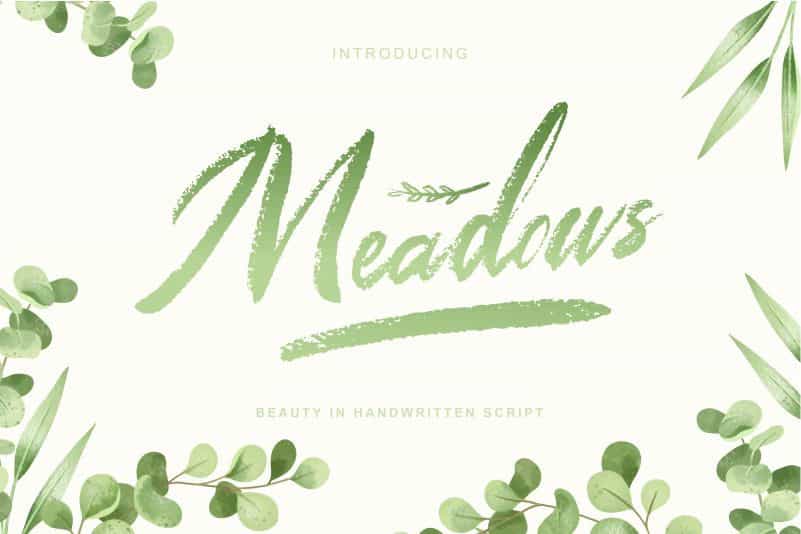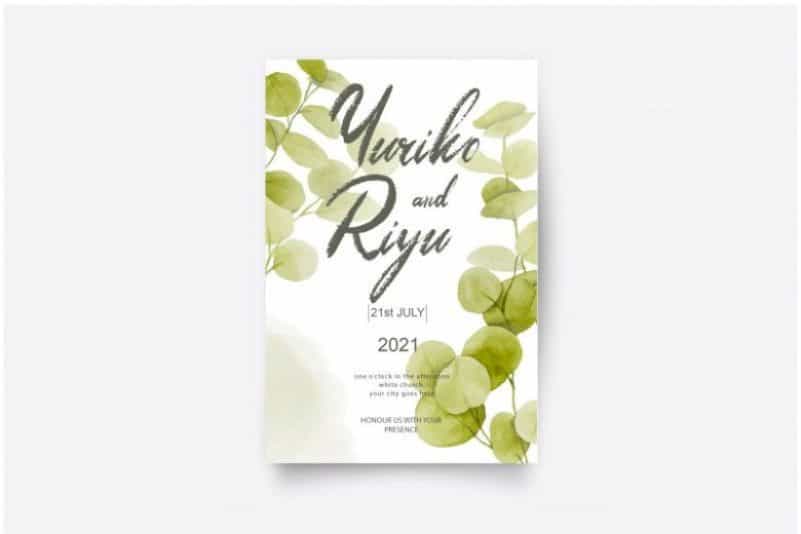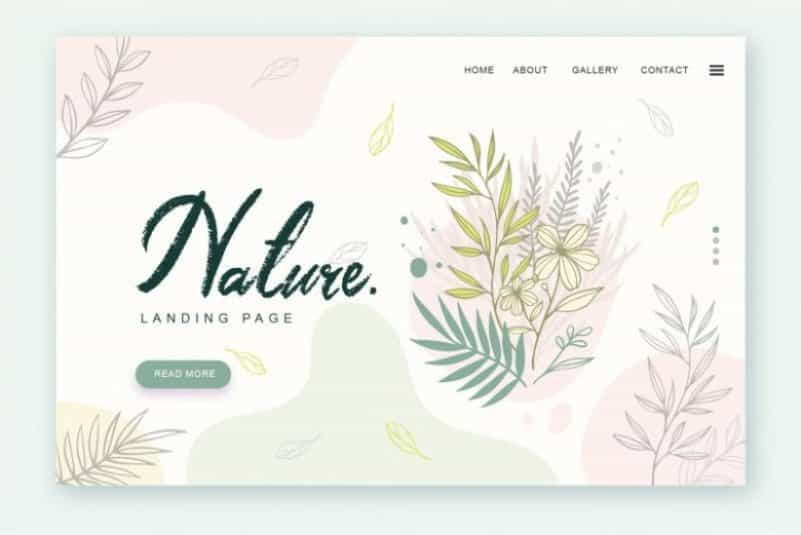
Meadows is a charming, old-fashioned handwritten script font. The jolly looking textured characters are the best font for making beautiful calligraphy art. Meadows has a variety of bold and aesthetic swashes that can be used to quickly add the decorative touch you are looking for. Spur your imagination with this lovely font and turn any of your crafts into a masterpiece.